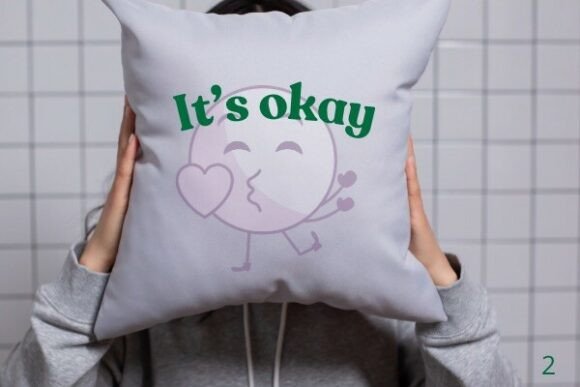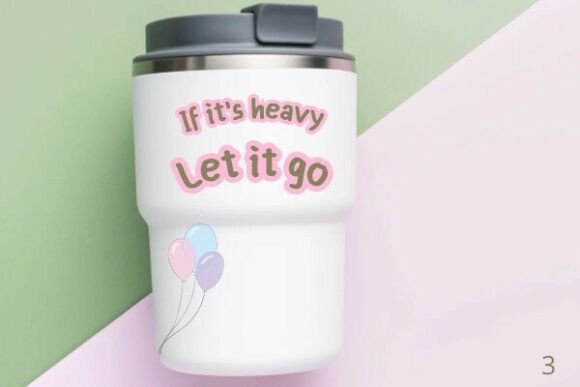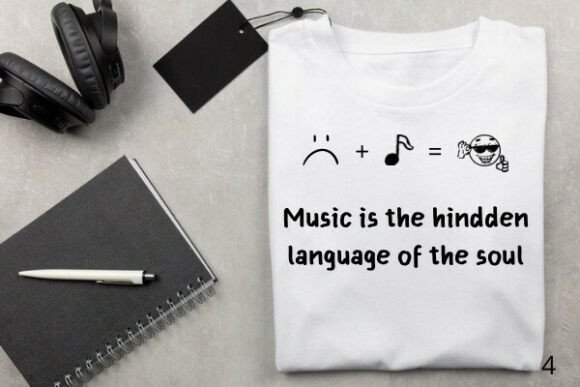
Introduction to Icepop Font
Icepop is an exceptionally unique handwritten font sporting a distinctive yet minimalist appeal.
πŸ‘€ Author Uloel Design
It’s the perfect stylistic choice for a wide array of design projects From creating an irresistible statement on t-shirts to crafting intriguing invitation or greeting cards, Icepop’s individuality shines through.
Why Choose Icepop Font?